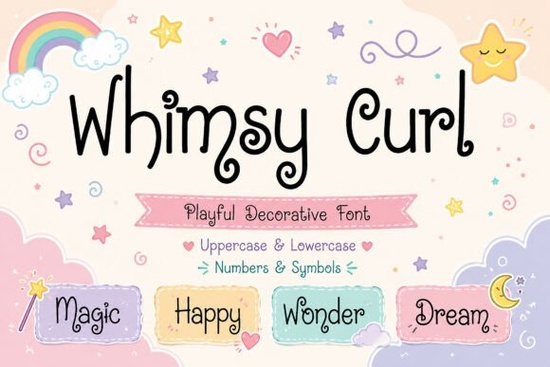
Whimsy Curl Font is a standout choice for anyone looking to add a playful and unique touch to their design projects. This decorative font brings a sense of charm and creativity that can elevate everything from invitations to packaging. Whether you're working on a children's book, a promotional flyer, or a custom t-shirt, Whimsy Curl offers a handcrafted feel that feels both authentic and inviting.
Designed with whimsical letterforms and curly details, this font is perfect for projects that need a little extra personality. It’s ideal for branding that wants to feel approachable and fun, making it a great fit for small businesses, crafters, and print-on-demand sellers. The font’s friendly appearance makes it easy to use in a variety of contexts without overwhelming the design.
What Makes Whimsy Curl Unique?
One of the key features of Whimsy Curl is its playful character. The font’s curls and flourishes give it a hand-drawn look that feels personal and expressive. This makes it especially well-suited for projects that aim to evoke a sense of joy or nostalgia. Its versatility means it can be used in both digital and print formats, making it a valuable addition to any designer’s toolkit.
The font also works well when paired with other typefaces. For example, using it alongside a clean sans-serif font can create a balanced and modern look while still keeping the playful element intact. This flexibility allows for a wide range of creative possibilities, whether you're designing for a brand, a product, or a personal project.
Best Uses for Whimsy Curl Font
Whimsy Curl is particularly effective in designs that require a touch of imagination and creativity. It’s a popular choice for children’s products, such as toys, books, and stationery. Its cheerful appearance also makes it a good fit for event invitations, especially for birthdays, weddings, or themed parties. The font can also be used in logos or branding materials that want to convey a friendly and approachable image.
For print-on-demand sellers, Whimsy Curl can be used to create eye-catching designs for t-shirts, mugs, and other merchandise. Its distinctive style helps products stand out in a crowded market, making it easier to attract attention and generate sales. The font’s readability also ensures that it remains legible even at smaller sizes, which is important for items like labels or packaging.
How to Use Whimsy Curl Effectively
To get the most out of Whimsy Curl, it’s important to use it in a way that complements the overall design. Overusing the font can make a project feel cluttered, so it’s best to use it as a highlight rather than the main text. For example, it can be used for headings, titles, or accents in a larger layout.
When working with this font, consider the context of the project. If you’re designing for a more formal setting, you might want to pair it with a simpler font to balance the look. On the other hand, if you’re going for a bold and creative style, you can use Whimsy Curl as the primary typeface, ensuring that it aligns with the overall theme of the design.
Whether you're a designer, crafter, or small business owner, Whimsy Curl Font provides a fun and expressive way to add personality to your work. Its playful nature and versatile use make it a valuable tool for anyone looking to bring creativity into their designs.
Before finalizing your design, take a moment to test the font in different sizes and contexts. This will help ensure that it looks great in all applications and meets the needs of your project. With a little experimentation, you can unlock the full potential of Whimsy Curl and create something truly special.